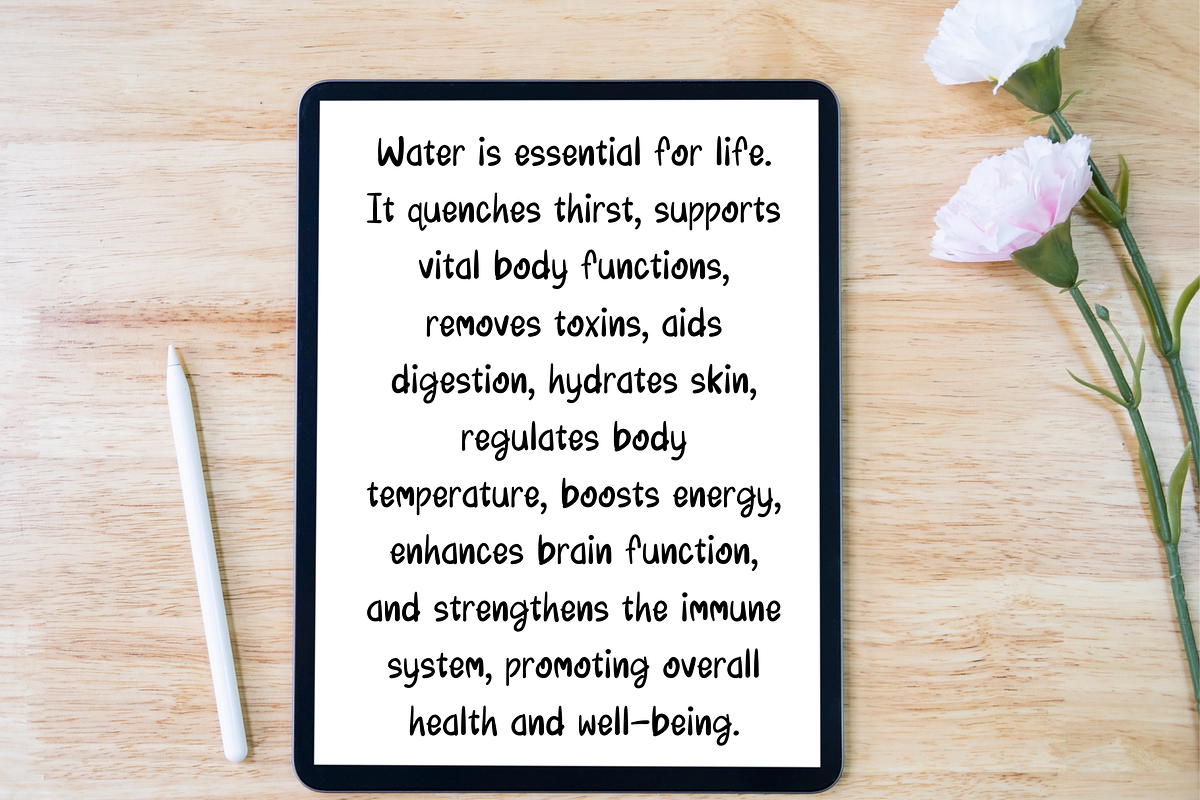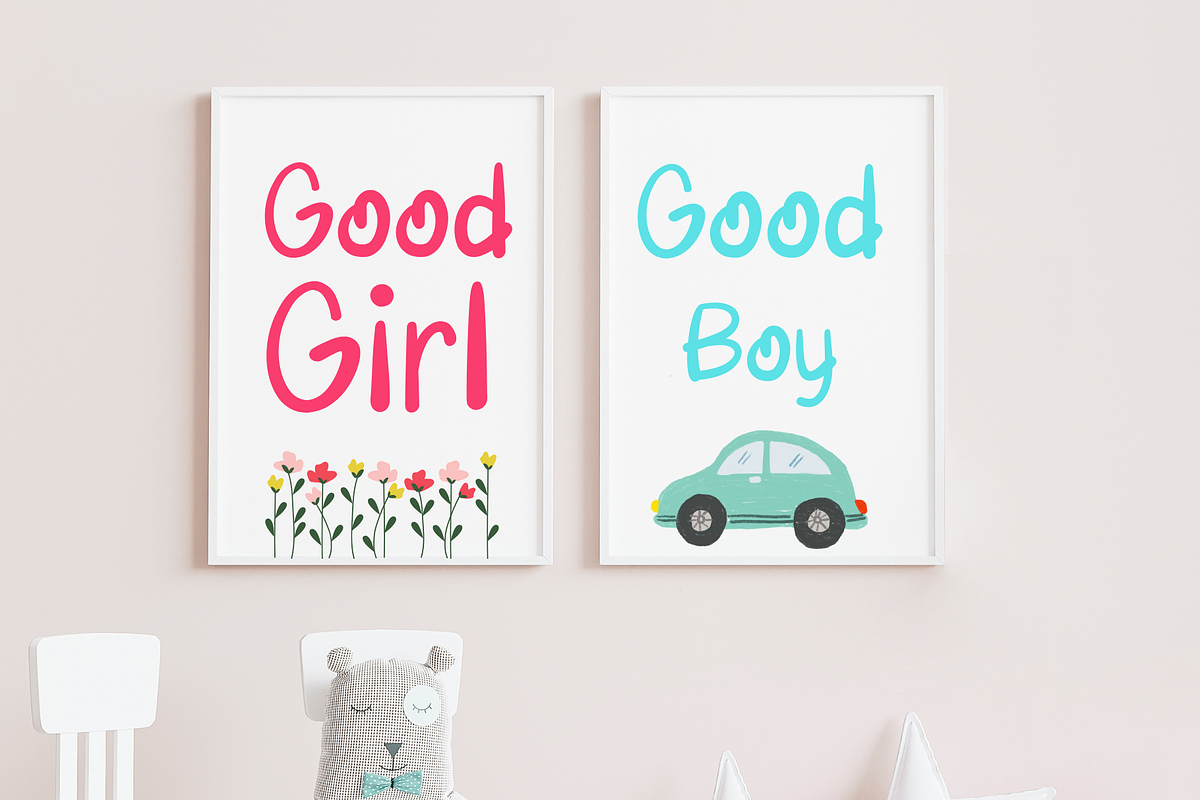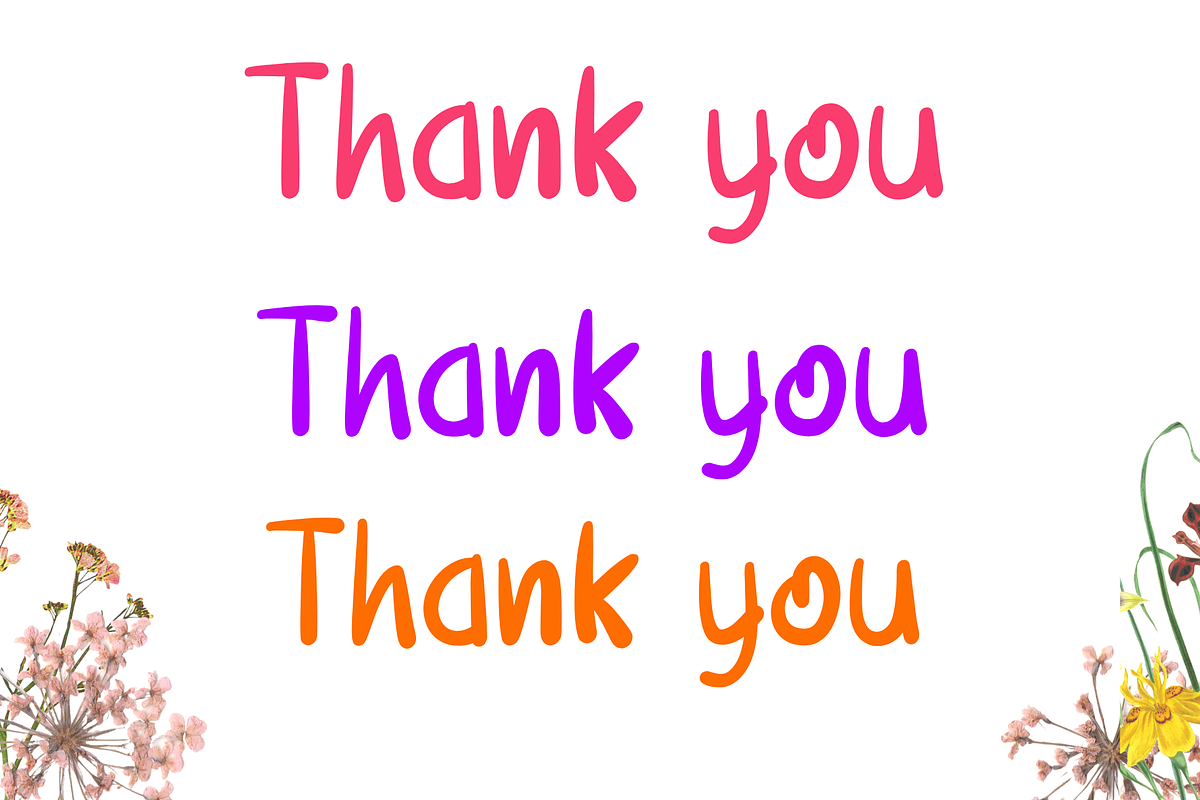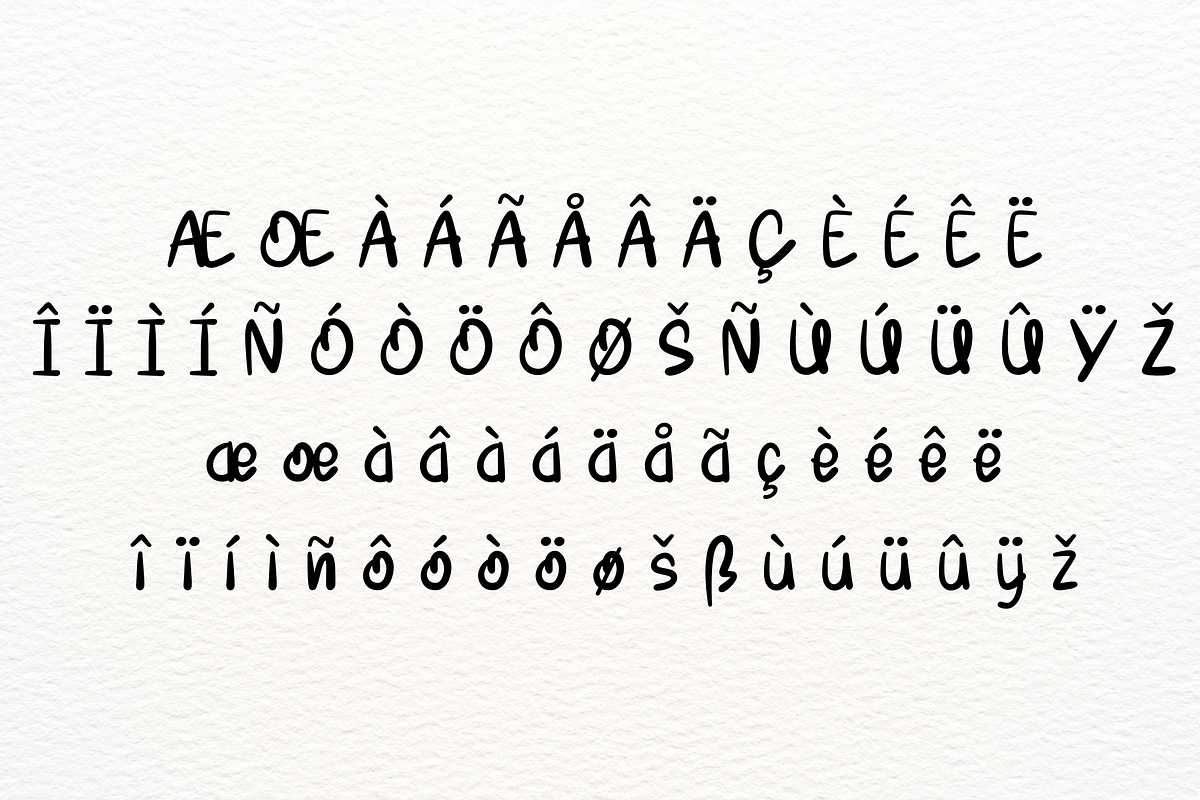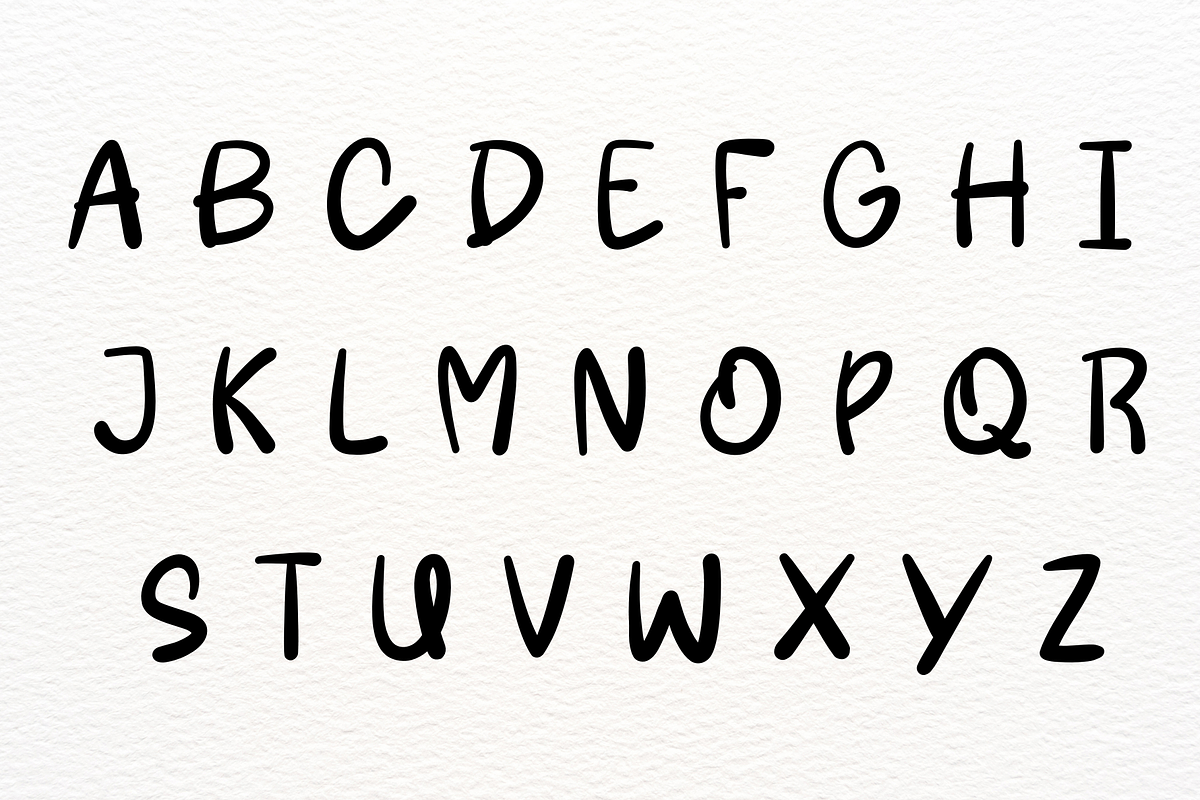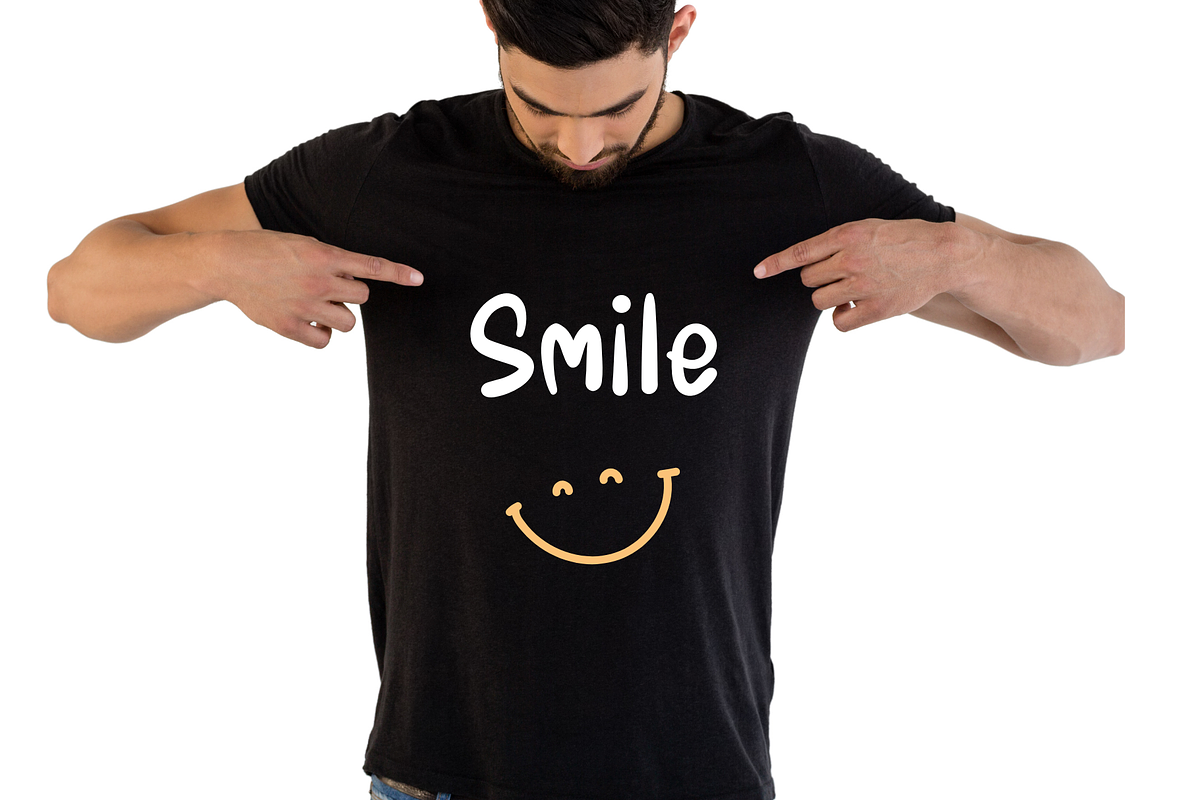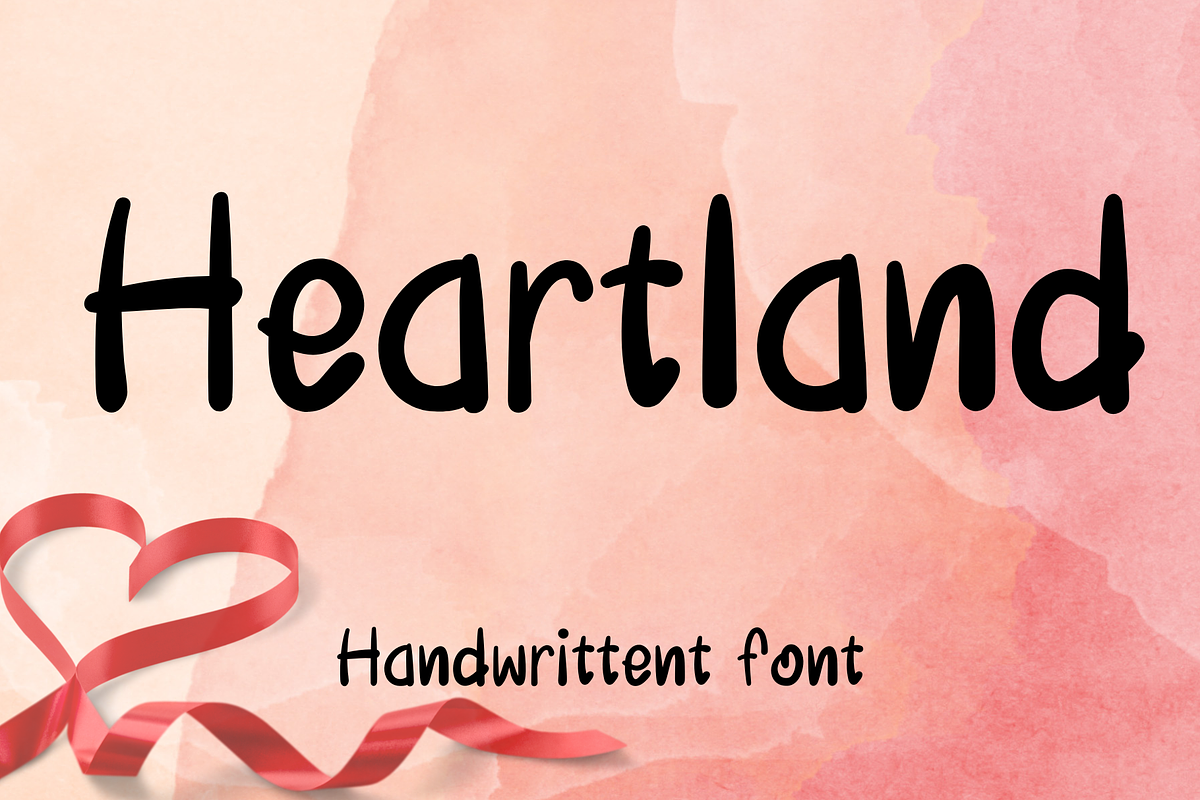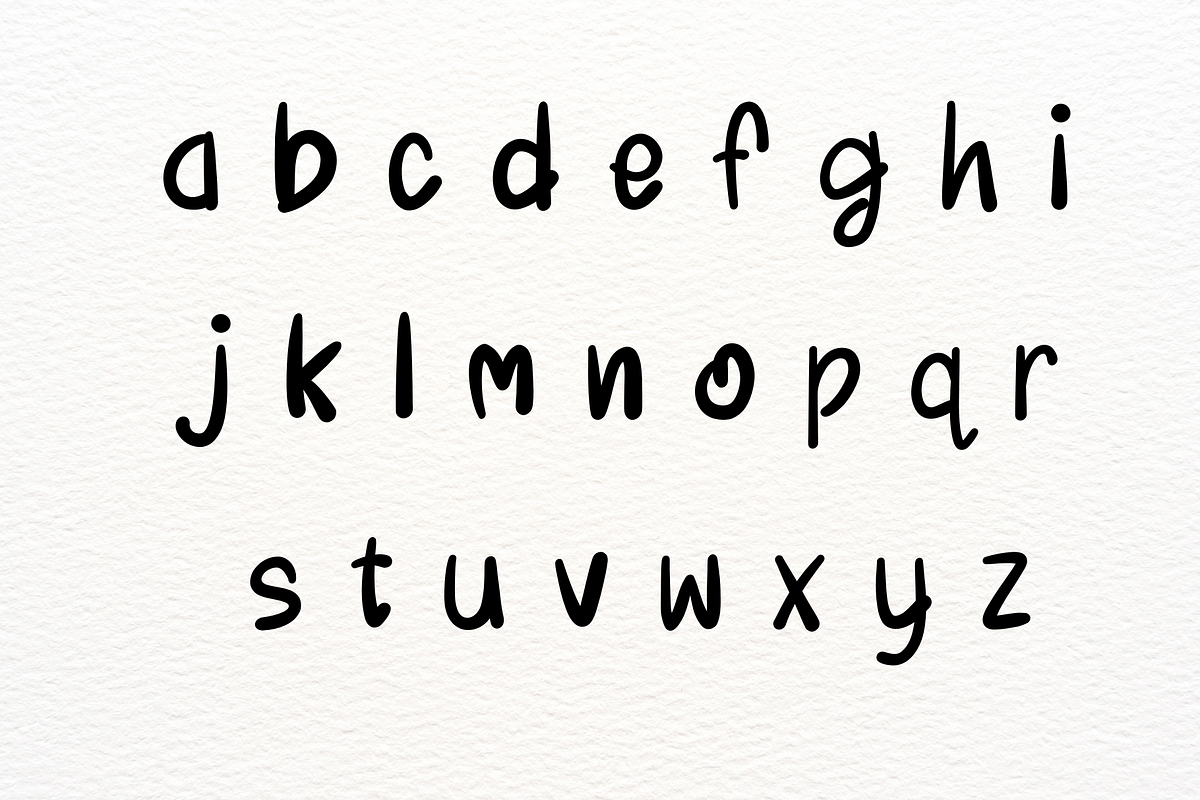
Heartland
heartland is a beautifully crafted handwritten font, perfect for adding a personal touch to your projects. Whether you're jotting down notes, keeping a diary, or designing greeting cards, this font is versatile enough to enhance a variety of designs. Use it for banners, content, mugs, cards, shirts, stationery, social media posts, and so much more!